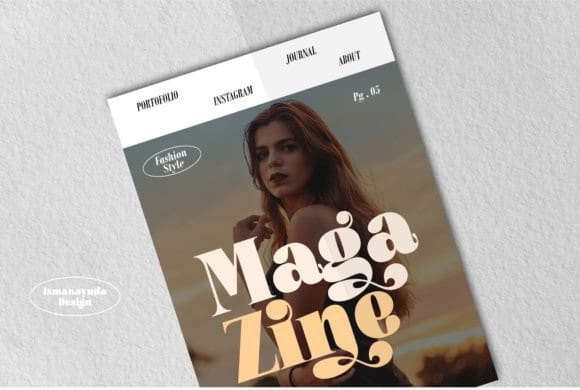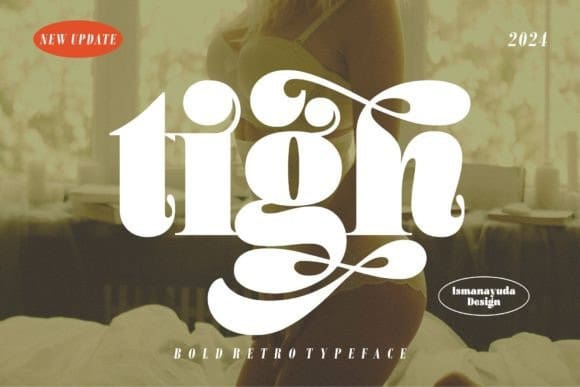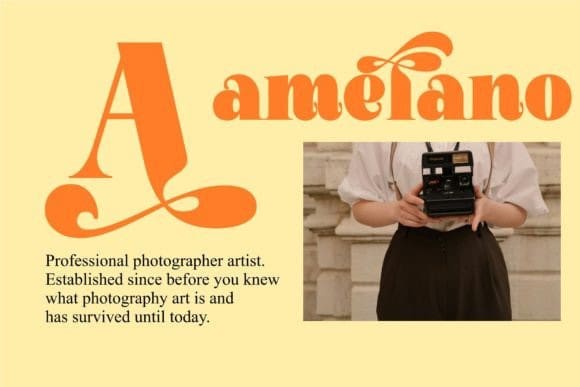
Tigh Font
Tigh Font is a simple yet distinctive font. It features several unique swashes and stylistic elements. As its name suggests, it is bold, making it perfect for display and other uses.